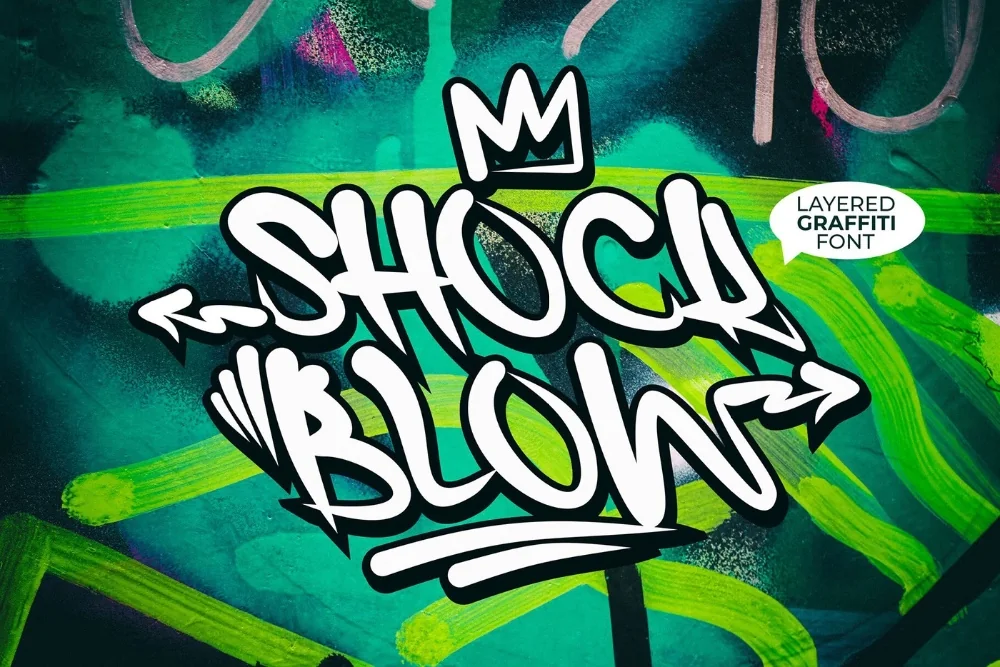
Impact Blast Graffiti Font
If you have been hunting for a impact graffiti font that does not look like every other download on the internet, this one earns its place. Explosive, jagged shapes borrowed from comic sound effects. Made for the single loudest word on the page.
Every stroke ends in a spike and the outer silhouette is deliberately irregular, so words form a starburst rather than a rectangle. Set it alone, with plenty of space around it.
Perfect for comic-style panels, sale callouts, streetwear graphics, and game UI art.
One practical note: set a test word at the size it will actually be printed before you commit to it, because street lettering behaves very differently at poster scale and on a label.